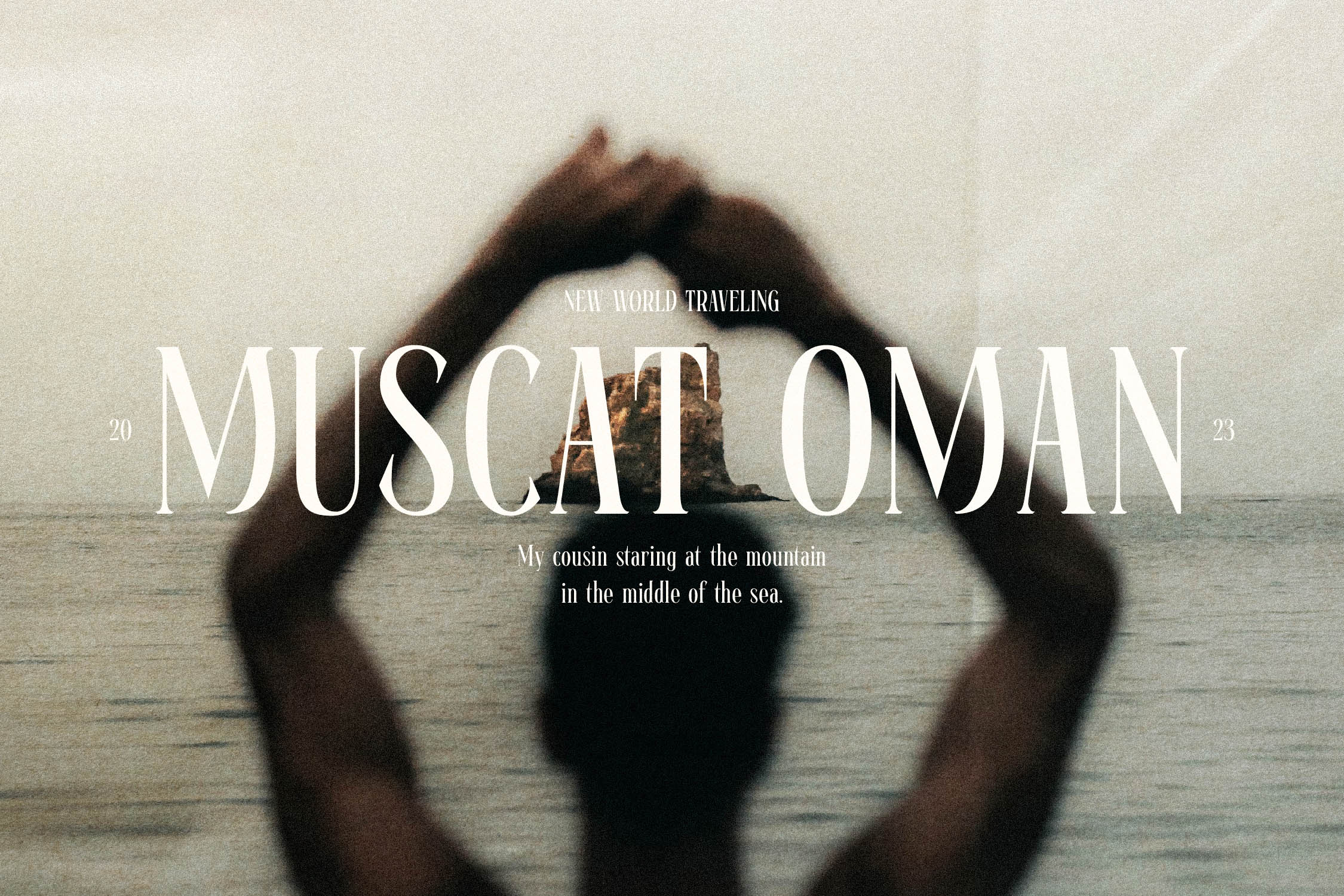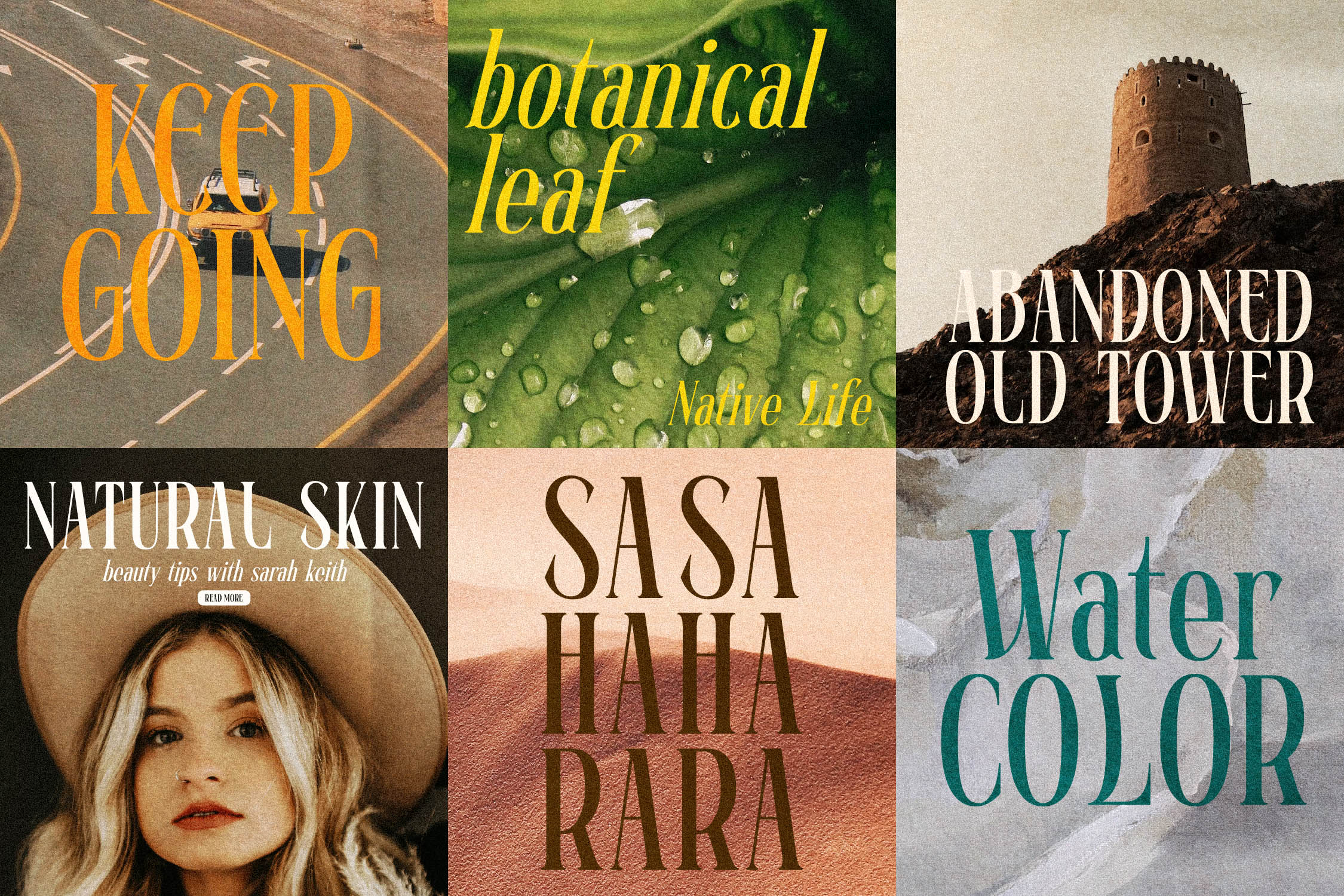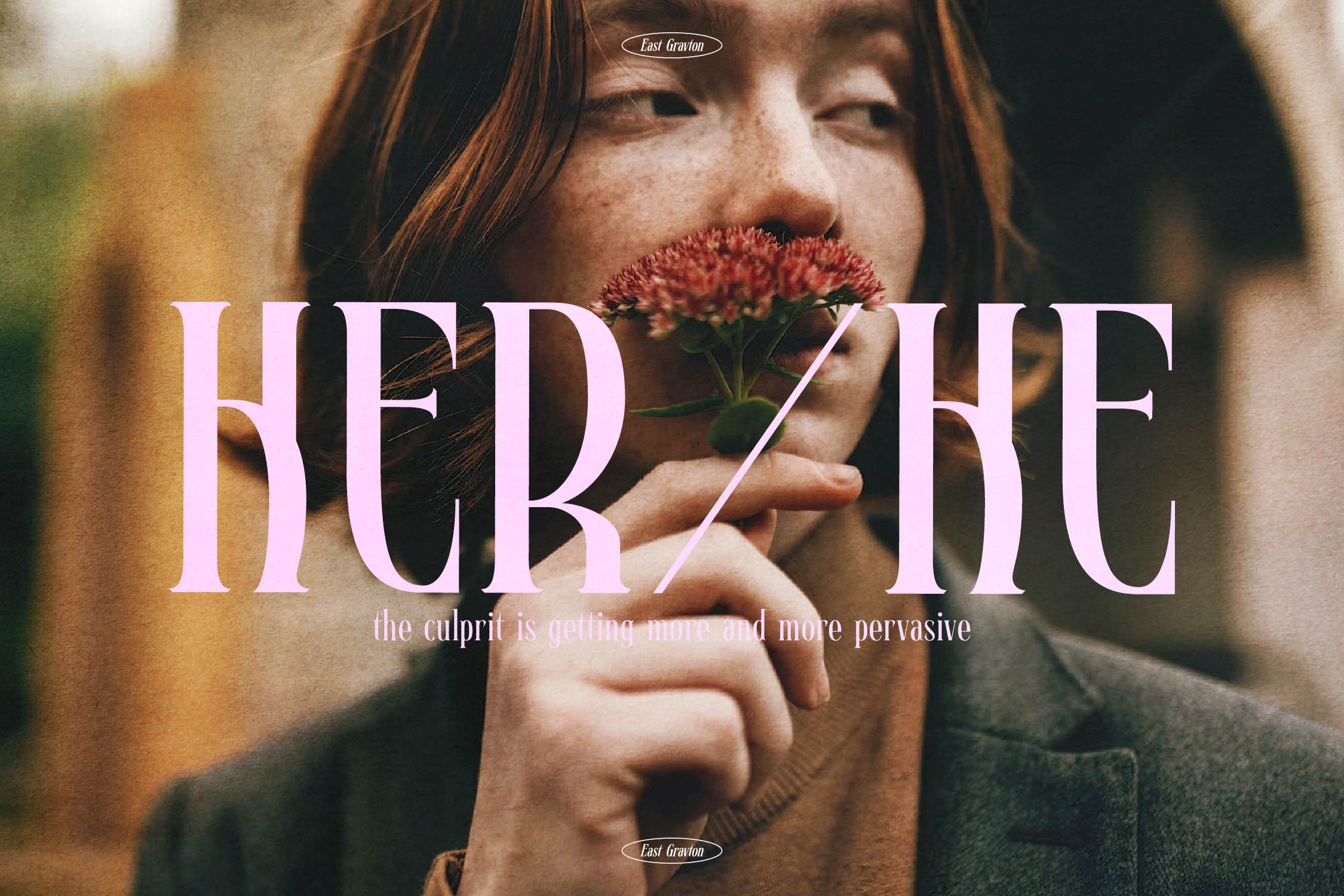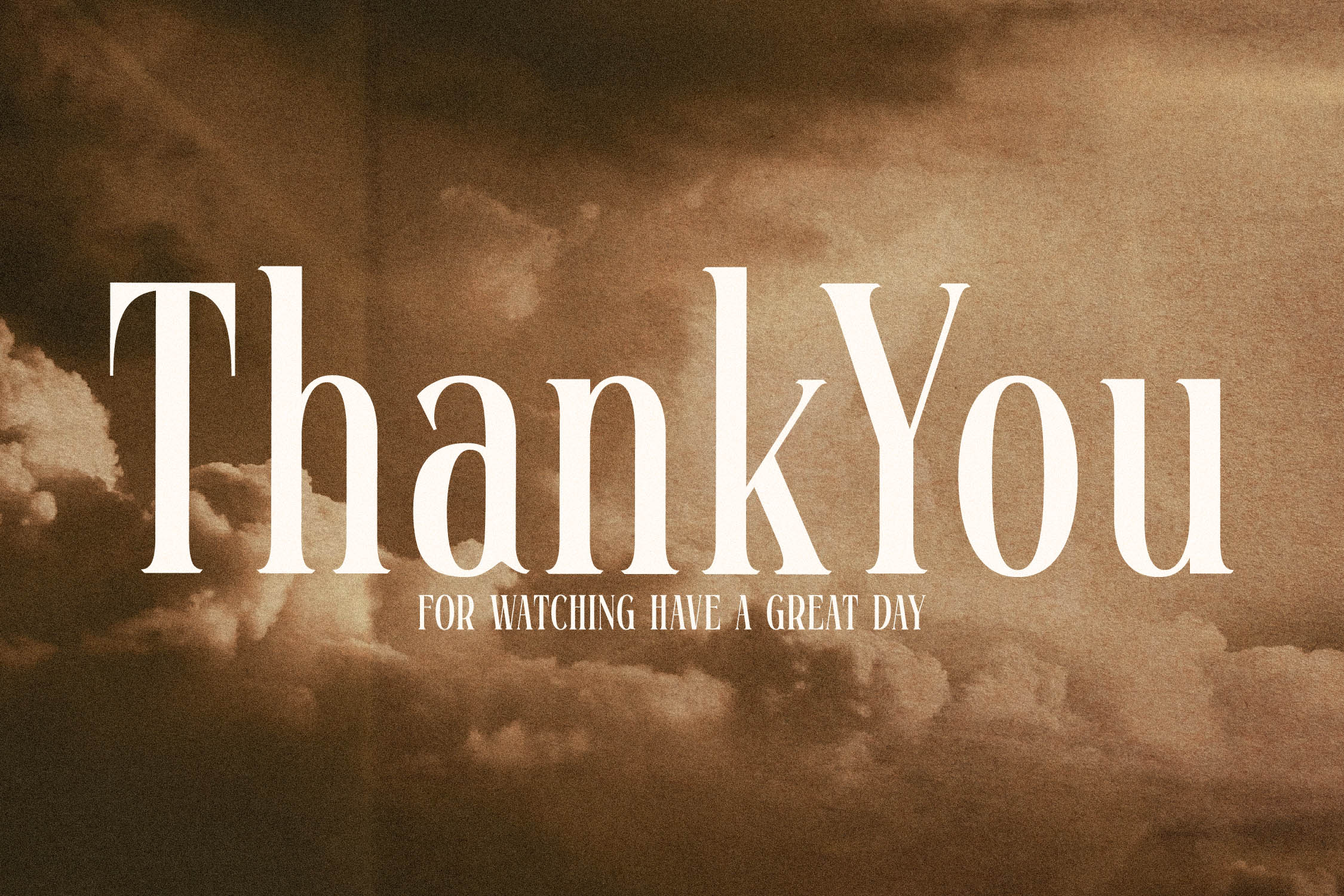
East Gravton Free Font
The new serif font, East Gravton Free, exudes a sense of timeless elegance and sophistication. Its delicate serifs and smooth curves convey a sense of grace and refinement, while its robust structure gives it a sense of solidity and dependability. It’s a font that makes a statement, evoking feelings of tradition and classic beauty. Perfect for any design that needs a touch of class and elegance.